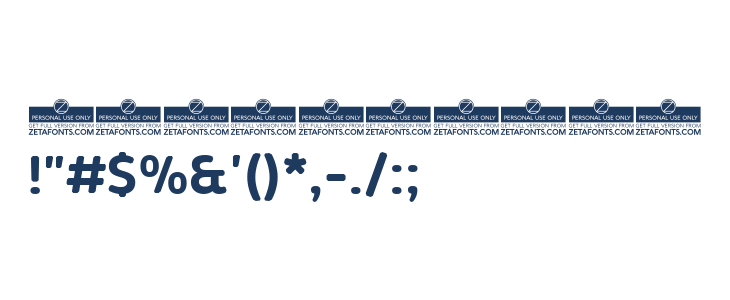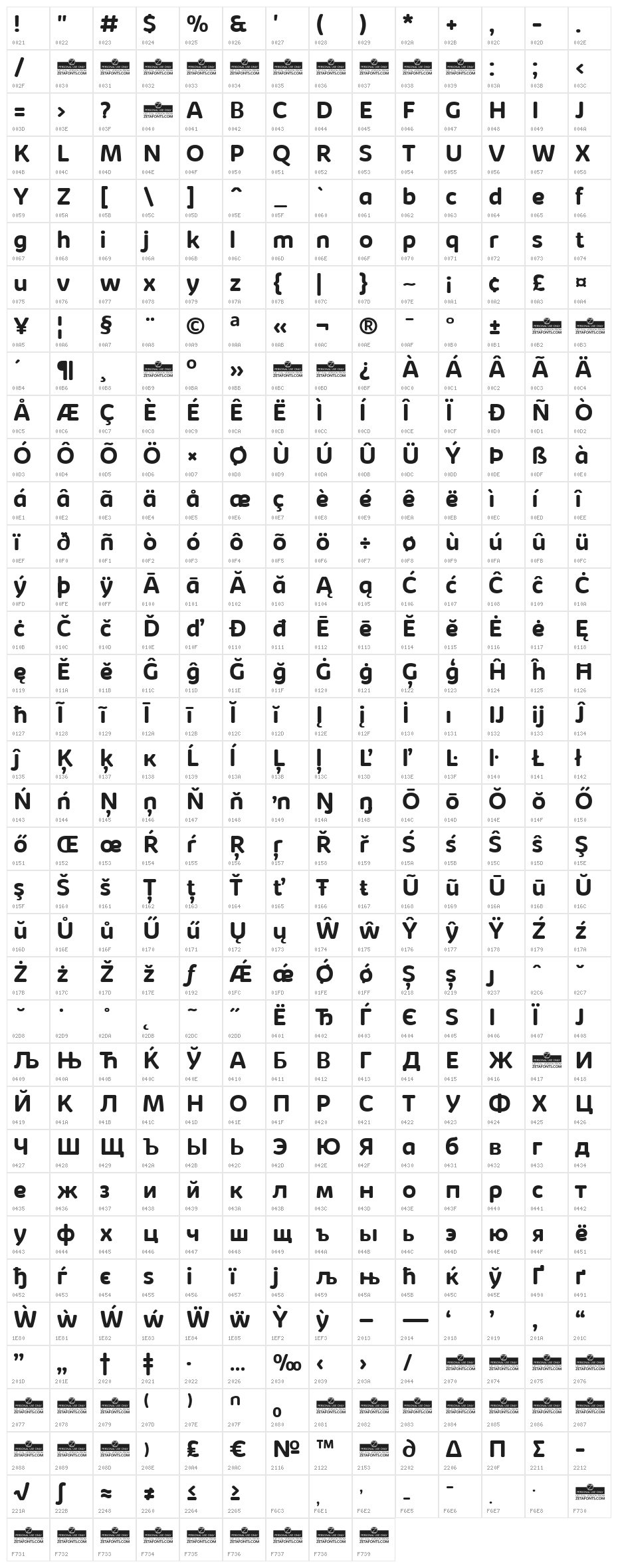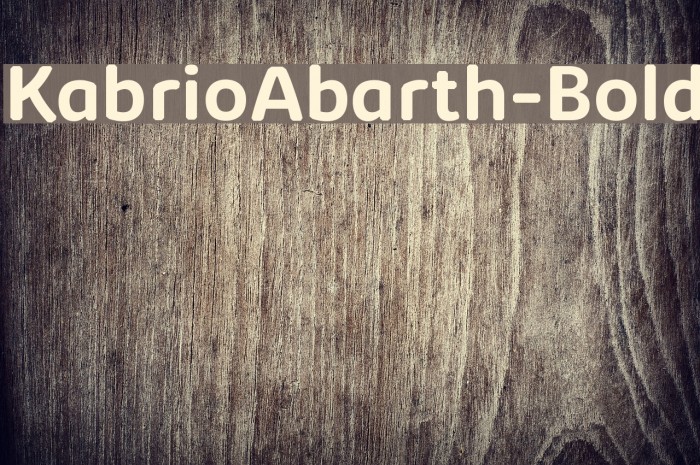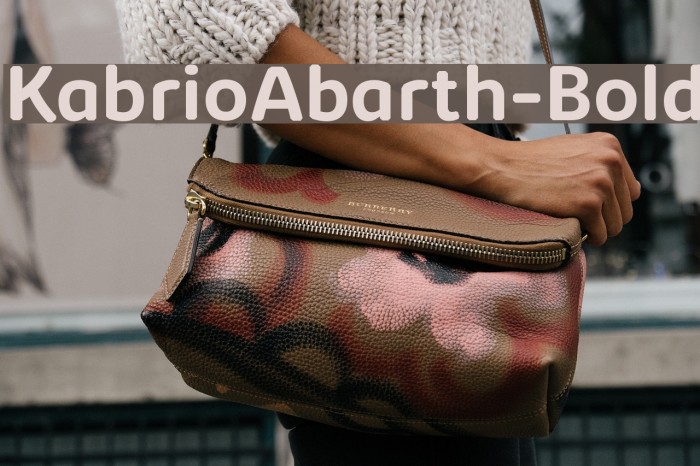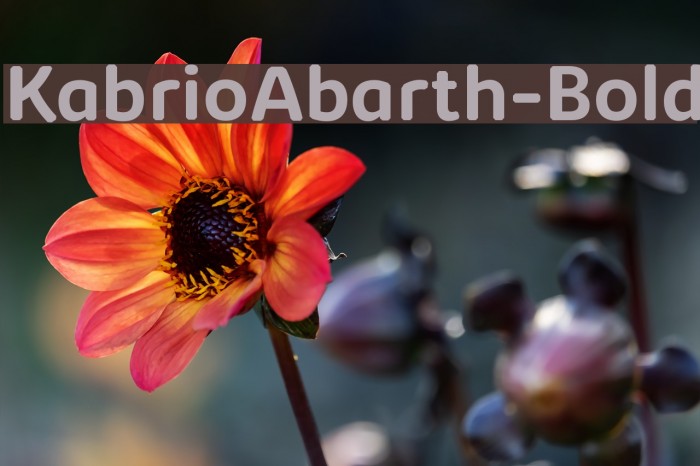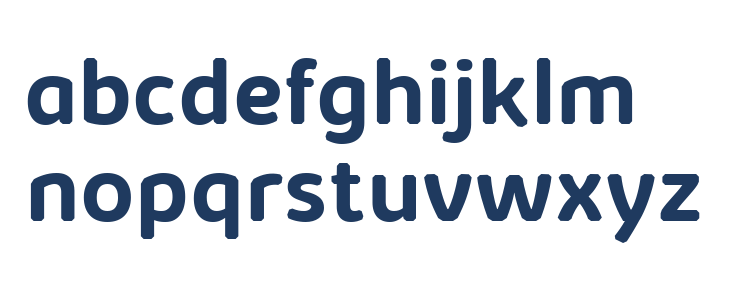
KabrioAbarth-Bold Font
KabrioAbarth-Bold Description
This font features a bold and rounded sans-serif style, characterized by its smooth curves and uniform stroke width. The letters are well-proportioned, offering a modern and friendly appearance. The uppercase and lowercase letters maintain a consistent design, enhancing readability. The numerals and special characters are crafted with the same attention to detail, ensuring a cohesive look across all glyphs. This font's simplicity and clarity make it versatile for various design applications.
| Use Case | Headlines, Logos, Digital Interfaces |
| Proposed Projects | Ideal for branding, advertising, packaging, and digital interfaces where a modern and approachable look is desired. |